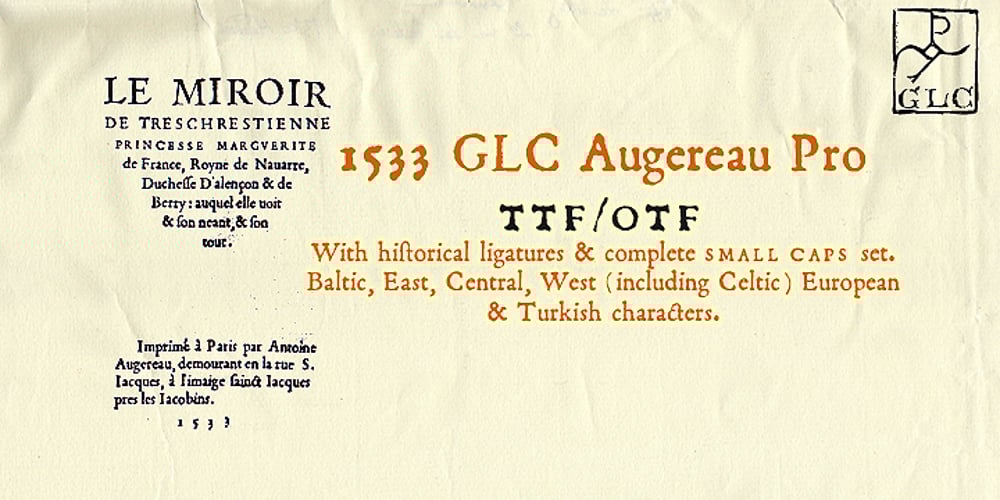
1533 GLC Augereau Pro
1533 GLC Augereau Pro font
1533 GLC Augereau Pro Font Family was designed by Antoine Augereau and published by GLC. 1533 GLC Augereau Pro contains 1 styles and family package options. This font was inspired by one of Antoine Augereau’s three roman typefaces: the Gros Romain (±16 Pts) size, used in 1533 to print Le miroir de l’âme…, a religious poetic compilation by Marguerite de Navarre, sister of the French king François the first. It seems possible that Augereau may have also engraved italic styles. This alphabet, with its complete small caps collection, is covering all West, East and Central European languages (including Baltic and Celtic) and Turkish.